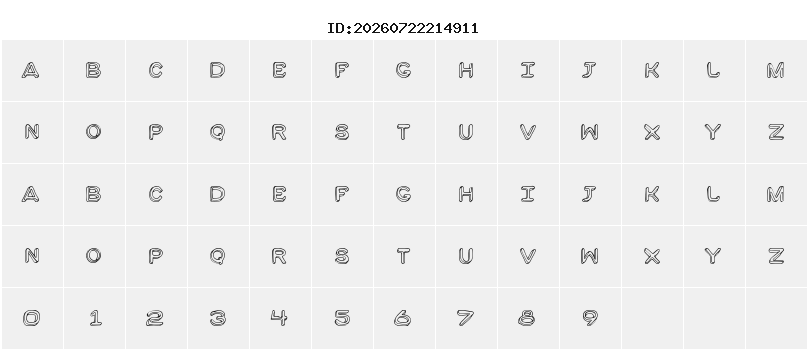
• Font Name: Moulden
• Designer: Max Infeld
• Manufacturer: Xerographer Fonts
• Description: Created in Oroville, CA by Xerographer Studios
Moulden.ttf is a modern, elegant sans-serif font designed for ultimate readability and visual harmony. Perfect for branding, headlines, web design, and print materials.